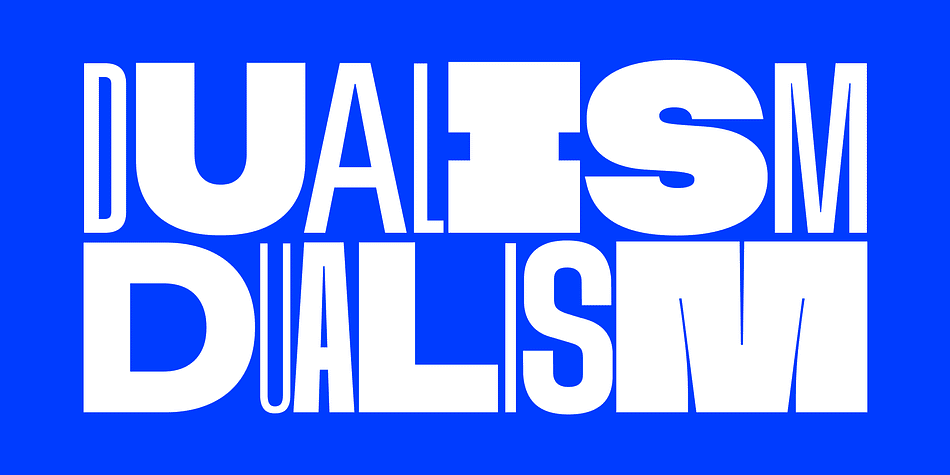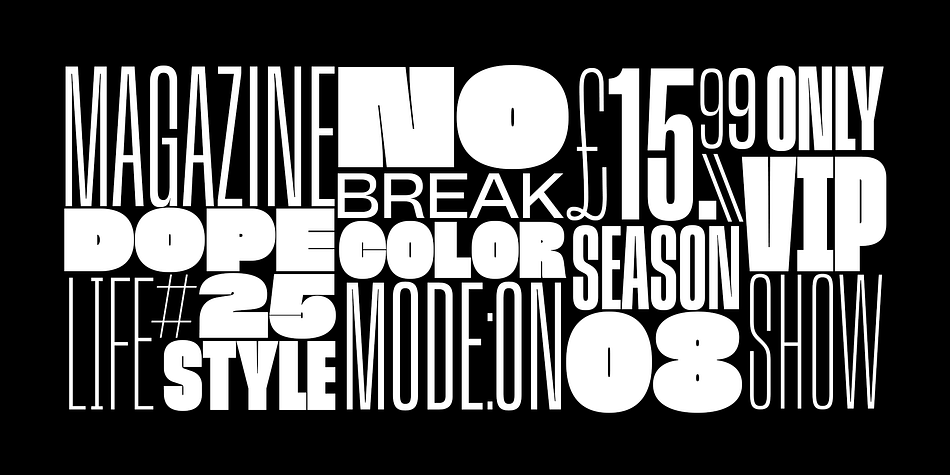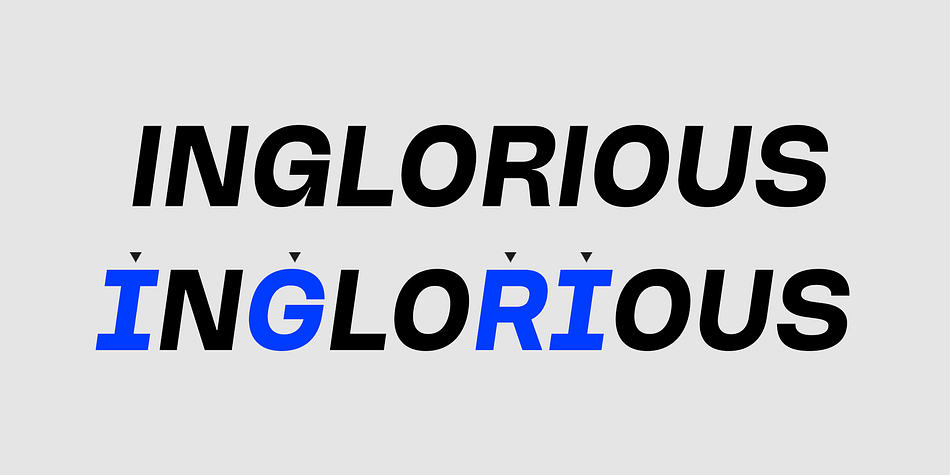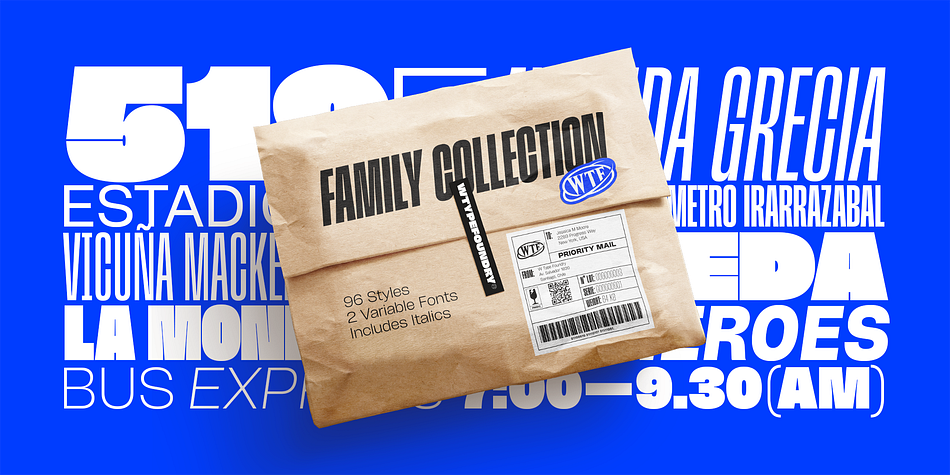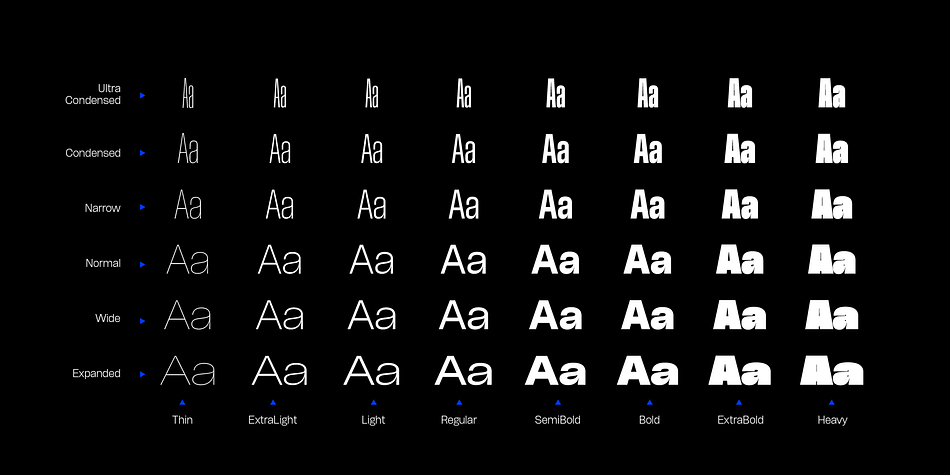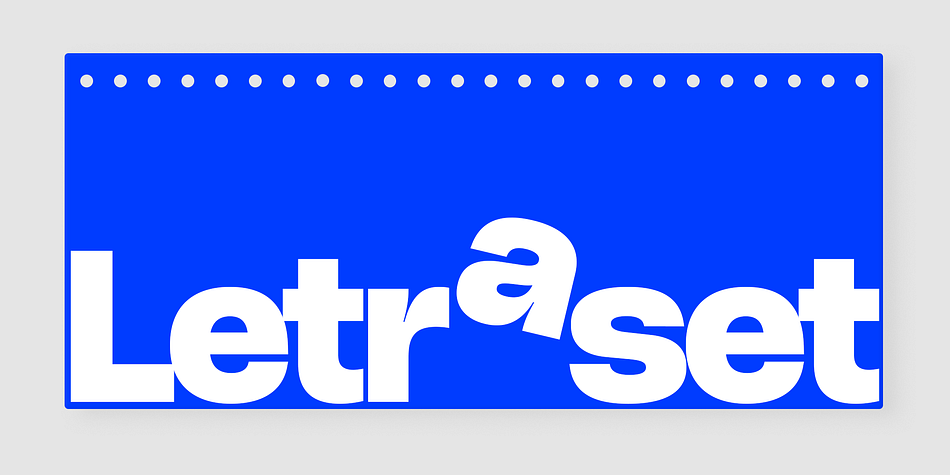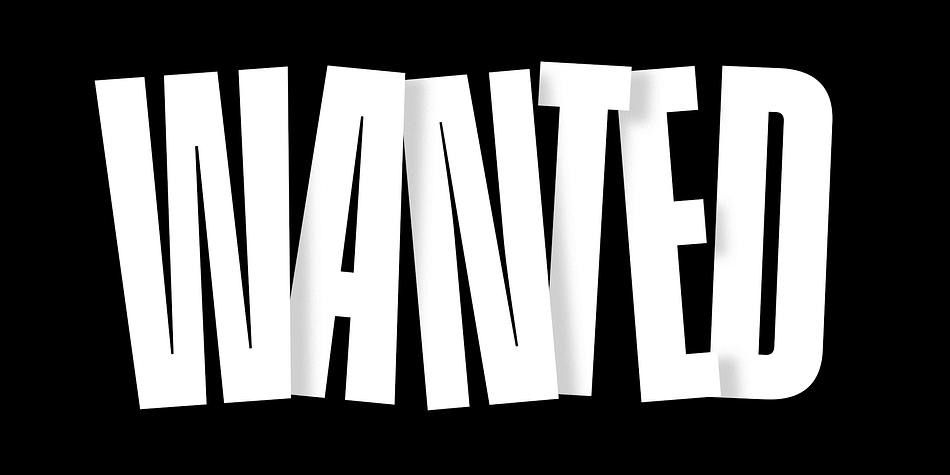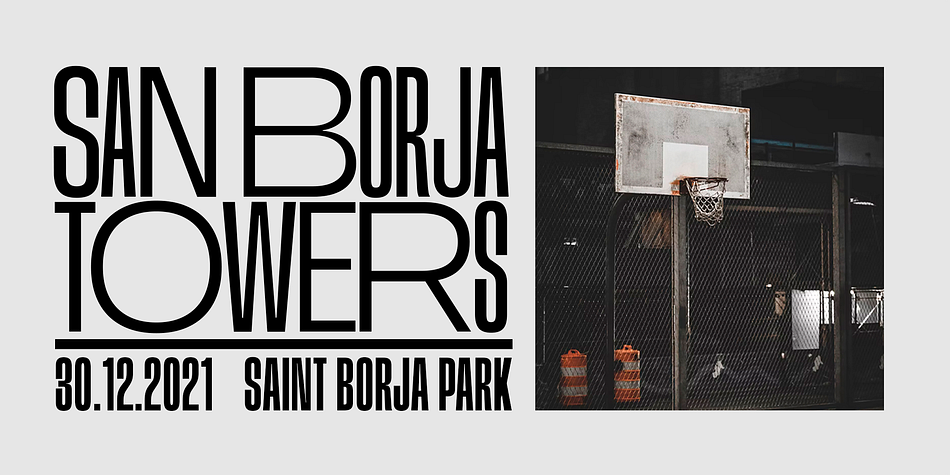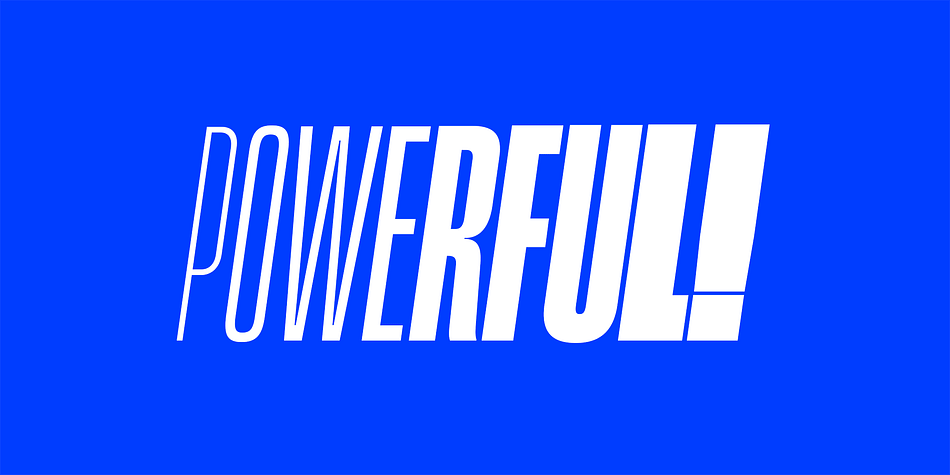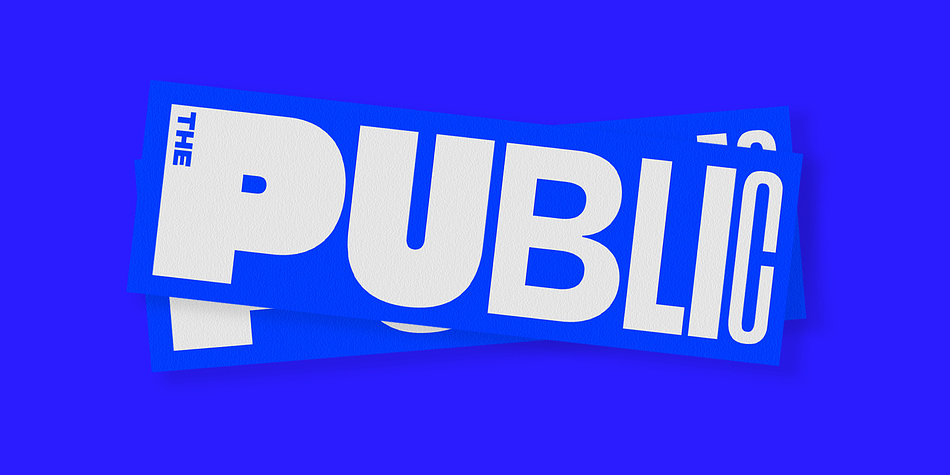
Designed by Gaspar Muñoz, Herokid is a sans serif font family. This typeface has ninety-eight styles and was published by W Type Foundry.
Herokid is a grotesque style font, inspired by classic fonts like Helvetica, Impact and Univers, with a dynamic, versatile and flexible personality. It ranges from Thin to Heavy, and from UltraCompressed to UltraExpanded.
It’s a huge family, with 96 variants adaptable to kinds of design projects providing flexibility for their creation.
Consider Herokid your new workhorse, you will be able to generate high-impact headlines, subtitles and/or text; all with the same font family.
The mixture of wide and condensed sets allows for versatile combinations and can give great movement to a design, while the regular weights can be used for text bodies. The heavier weights also stand out, with its very full shapes with small counterforms, ideal for big headlines.